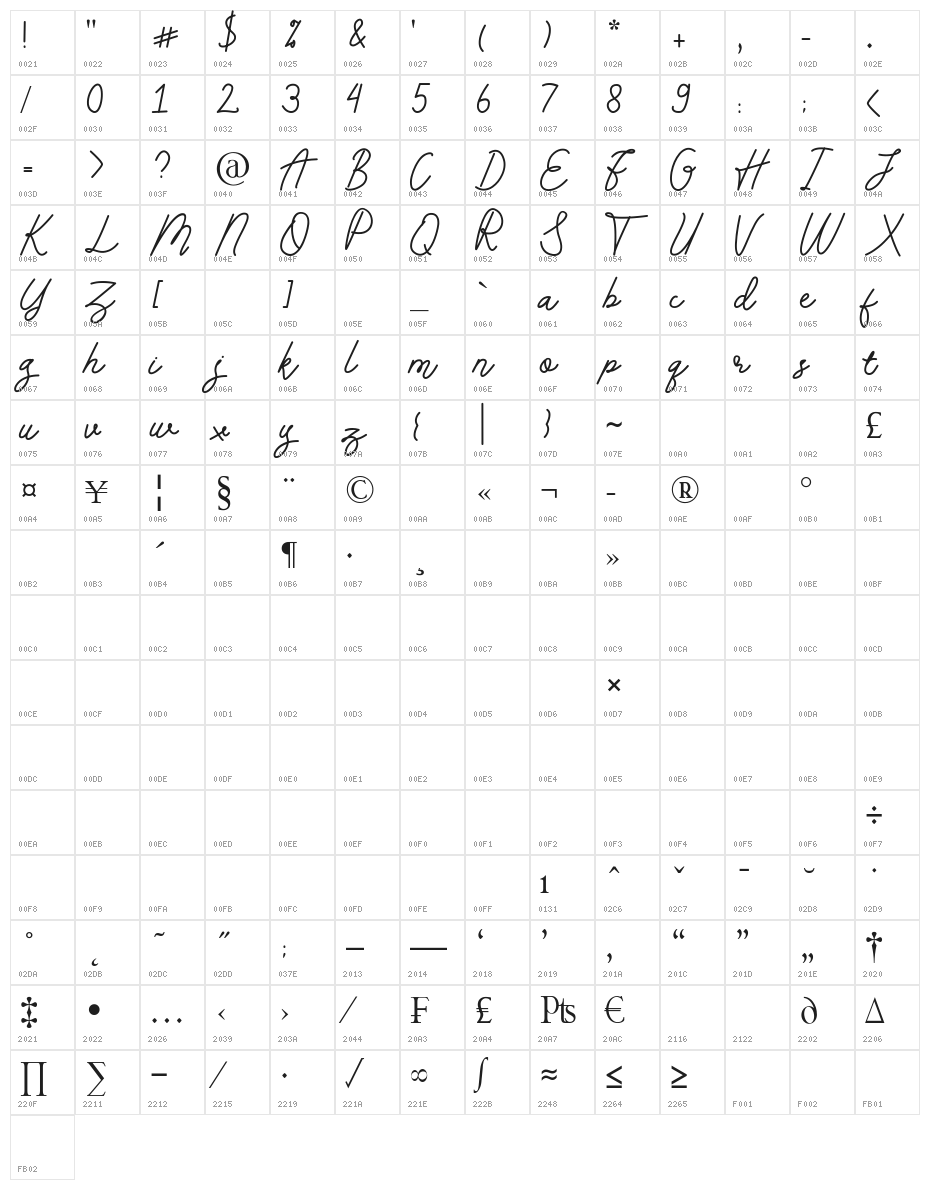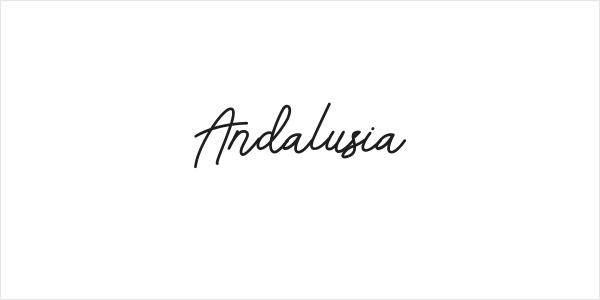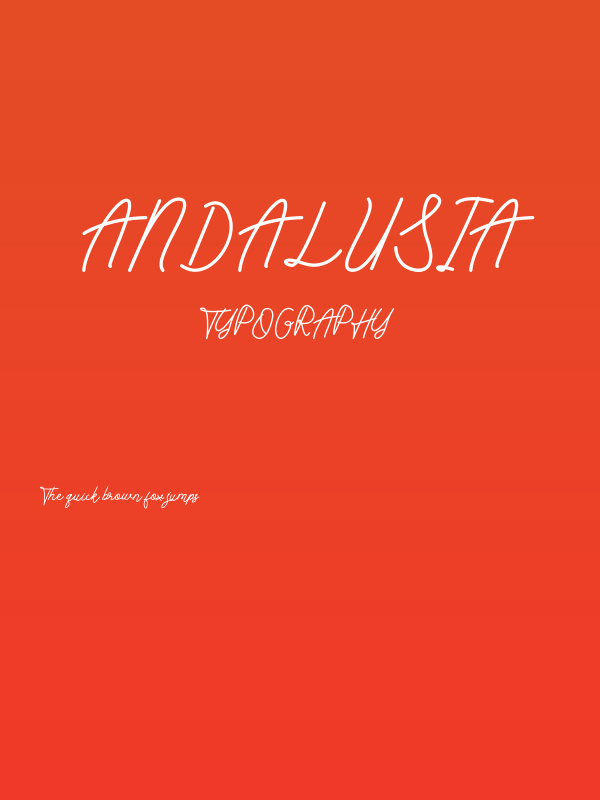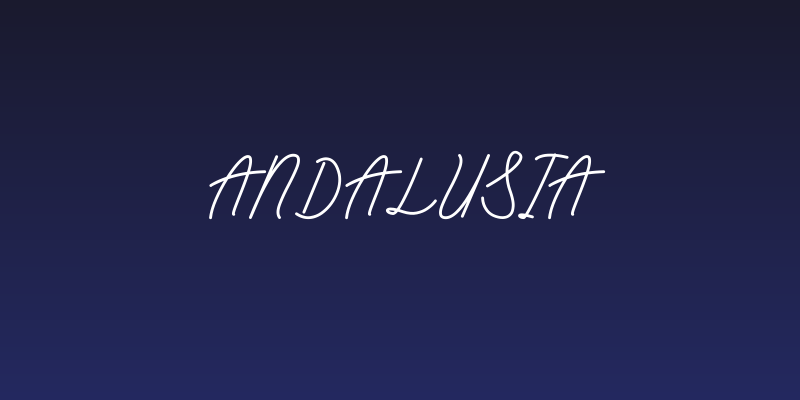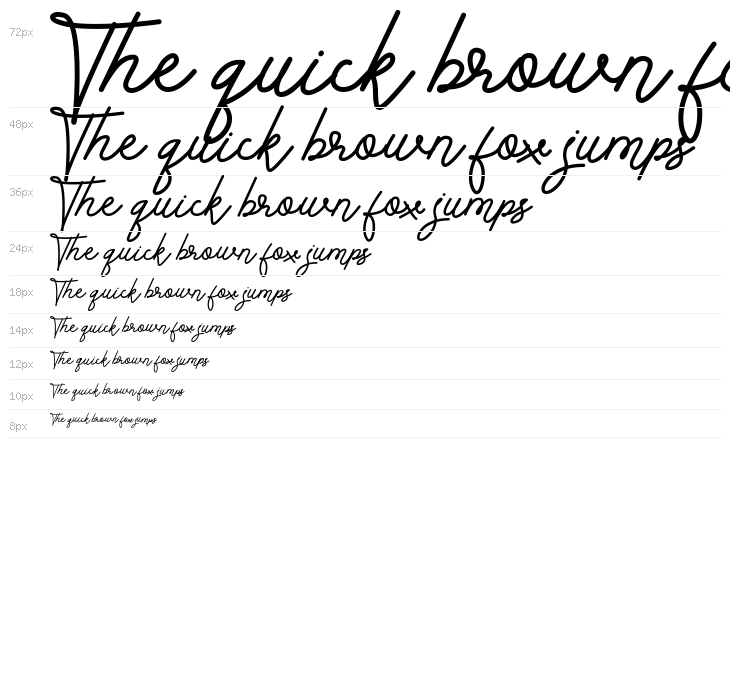
Andalusia Font
Andalusia Description
This font exudes a sense of elegance and fluidity, characterized by its cursive, handwritten style. The letters are connected, creating a seamless flow that mimics natural handwriting. The uppercase letters maintain a consistent height, while the lowercase letters exhibit a slight slant, enhancing the script-like appearance. The numbers and special characters are crafted with the same attention to detail, ensuring uniformity across all glyphs. The strokes are smooth and continuous, with a medium contrast that adds to the overall readability. This font is perfect for projects that require a personal touch, such as invitations, greeting cards, or branding materials.
| Overall Style | Elegant, Handwritten |
| Use Case | Headlines, Invitations, Personal Branding |
| Proposed Projects | Ideal for invitations, greeting cards, personal branding, and decorative projects. |